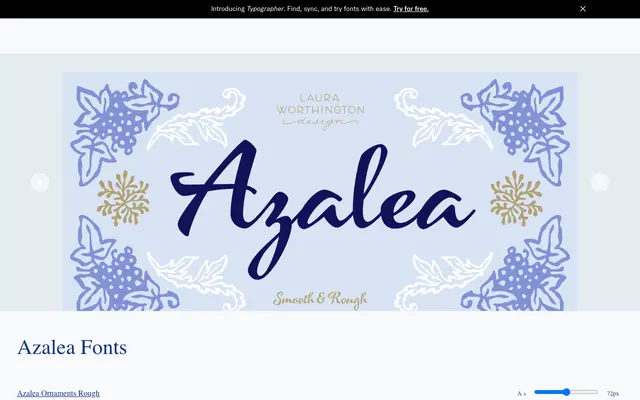
Azalea
A brush script drawing on 1950s hand-lettering traditions, offered in rough and smooth variants with a companion ornaments set.
Inky strokes and artfully irregular thicks and thins give this brush script an organic, hand-lettered character rooted in mid-century lettering styles. The family splits into Rough and Smooth variants, each with a matching ornaments font, while alternate capital letters in the Rough cut lean further into a casual, rustic quality. OpenType features include stylistic alternates, stylistic sets and titling capitals, with the fonts coded to allow access to swashes and ornaments without professional layout software.
A brush script with inky, hand-lettered strokes referencing 1950s brush lettering traditions, featuring organic thicks and thins with a jaunty, angular quality.